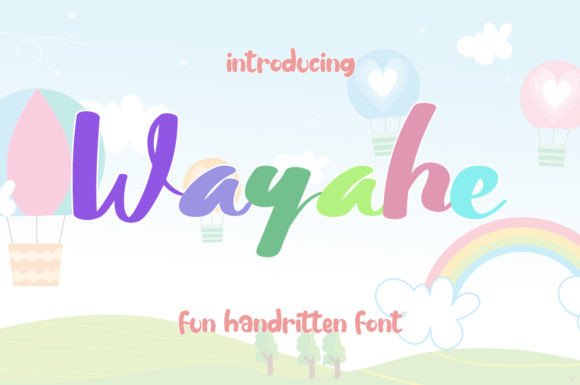
Journey into the world of elegance and sophistication with Wayahe Font, a breathtaking script font that exudes charm and personality. Step into the spotlight of fashion blogging with this exquisite creation from Mr.Soon Design, a font family that oozes effortless style and grace. Wayahe Font is more than just a font; it's an artistic statement that transforms your designs into masterpieces.
Unleash your creativity and let your imagination soar with Wayahe Font. Its meticulously crafted curves and delicate swashes dance across the digital canvas, captivating your audience with every stroke. This font is not just a tool; it's an expression of your unique style, allowing you to communicate your message with flair and finesse.
With Wayahe Font, you'll discover a font that's as versatile as it is beautiful. Its clean and elegant lines make it perfect for formal settings, while its playful and whimsical touches add a touch of whimsy to informal projects. Whether you're crafting logos, designing websites, or creating social media graphics, Wayahe Font will elevate your designs to new heights of sophistication.
Immerse yourself in the world of fashion blogging with Wayahe Font. Its timeless beauty and chic style will make your blog stand out from the crowd. Captivate your readers with visually stunning content that speaks to their sense of style and sophistication. From runway looks to street style inspiration, Wayahe Font will add an undeniable touch of glamour to your every post.
With Wayahe Font, you'll gain access to a font that's not just visually stunning but also incredibly easy to use. Its user-friendly interface and intuitive features make it a breeze to incorporate into your designs, saving you time and effort. Unleash your creativity without limits and let Wayahe Font take your designs to the next level.
Don't settle for ordinary fonts that blend into the background. Embrace the extraordinary with Wayahe Font, a font that commands attention and leaves a lasting impression. Let your designs shine with a font that reflects your passion for fashion and your commitment to excellence. Wayahe Font is more than just a font; it's an investment in your creative journey.